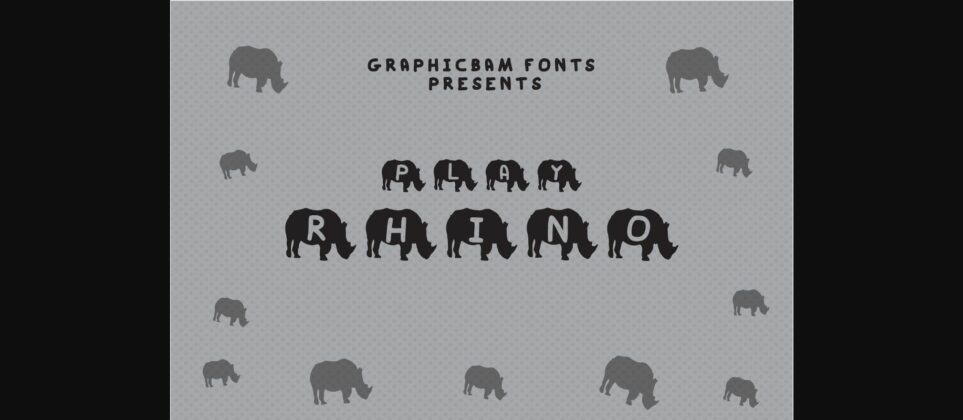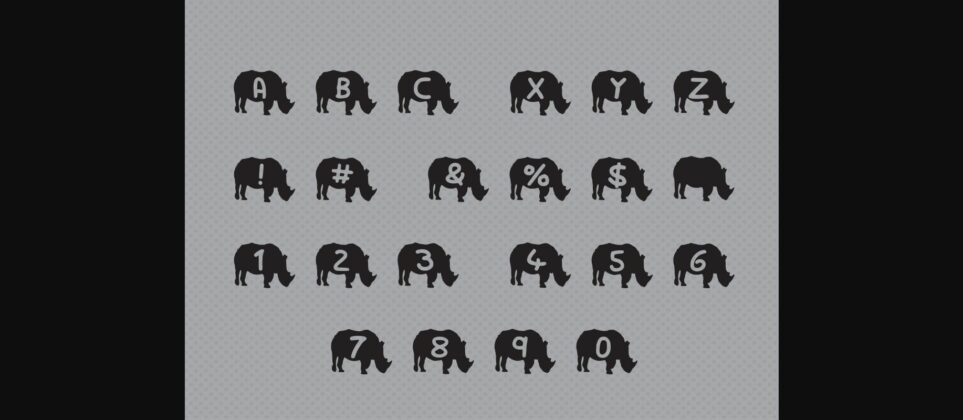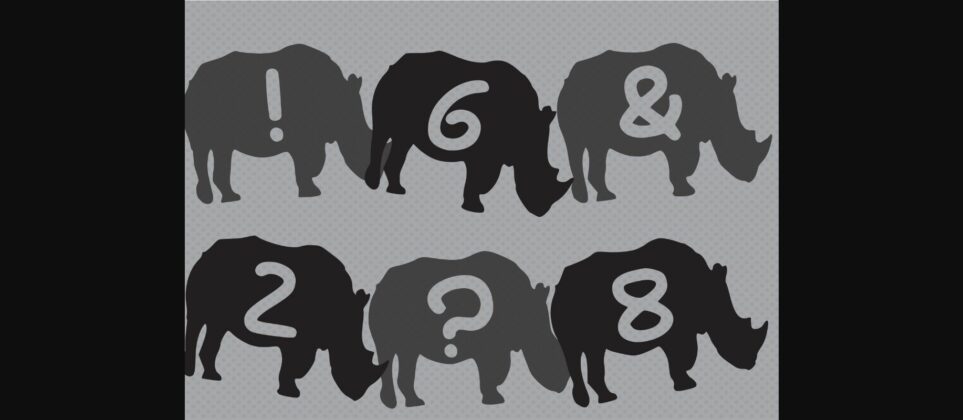
About Play Rhino Font
Play Rhino is the perfect decorative font for creative minds! Use this cute typeface to create amazing storybook covers, children’s designs, games, posters, and more.